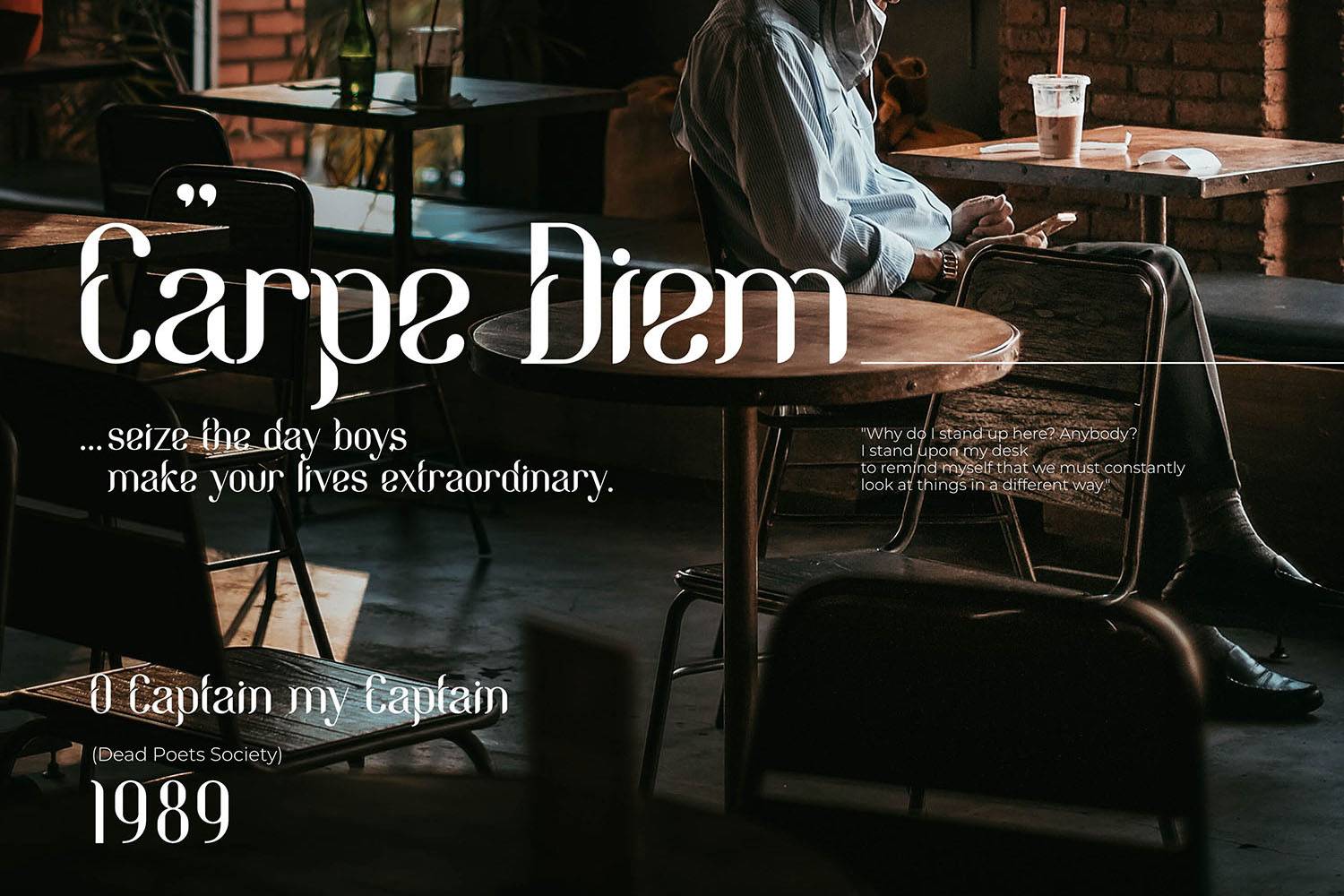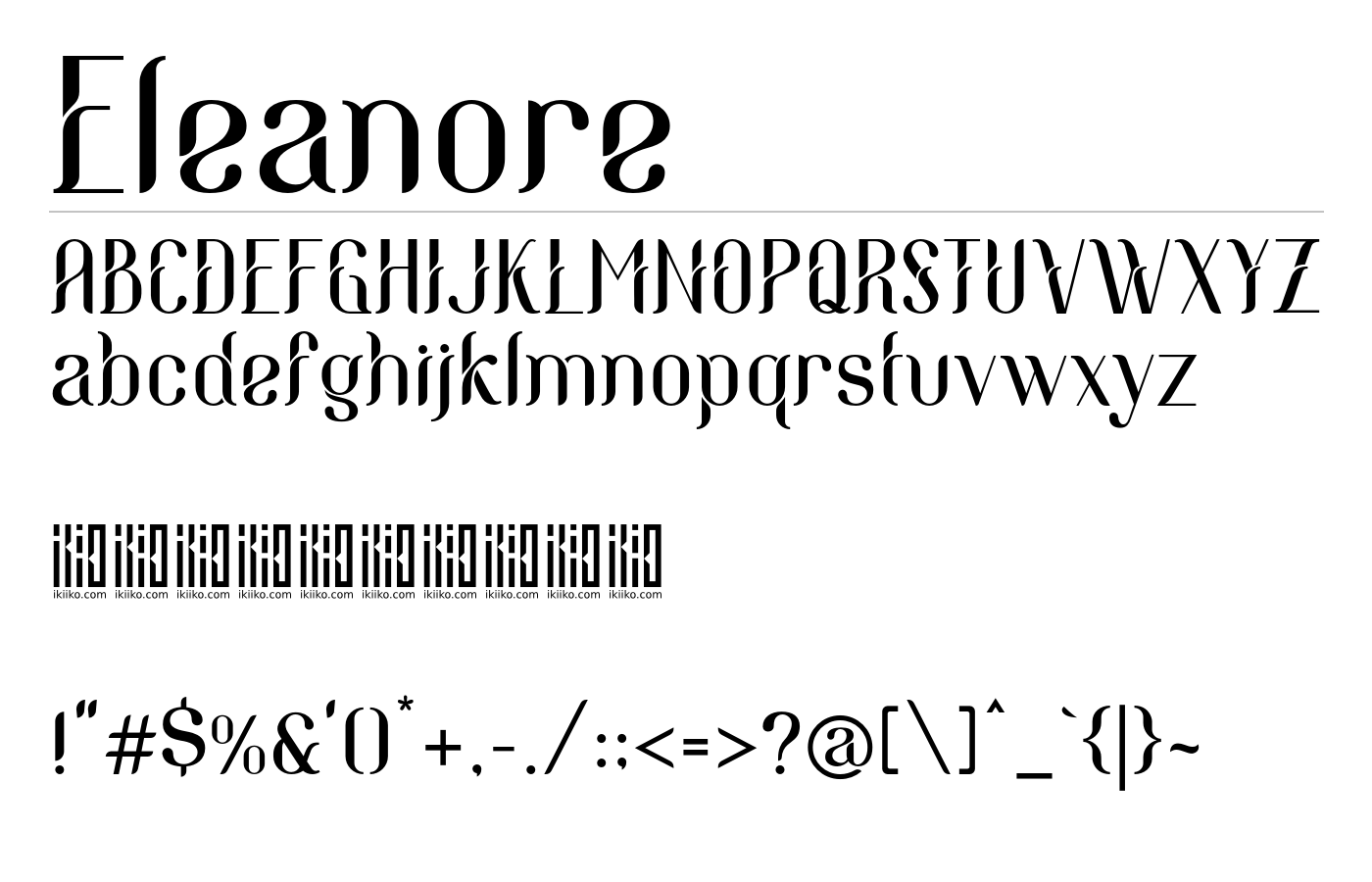
Eleanore is a distinctive serif font that blends modern elegance with artistic flair, featuring a tall, condensed structure and high contrast between thick and thin strokes. Its sharp, bracketed serifs and unique letterforms, like the stylized "g" and curved "Q" tail, give it a sophisticated yet creative personality, perfect for luxury branding, editorial headlines, and stylish packaging. This font works best where a bold yet refined statement is needed, making it ideal for fashion, beauty, and high-end design projects.
Eleanore Font
About Eleanore Font